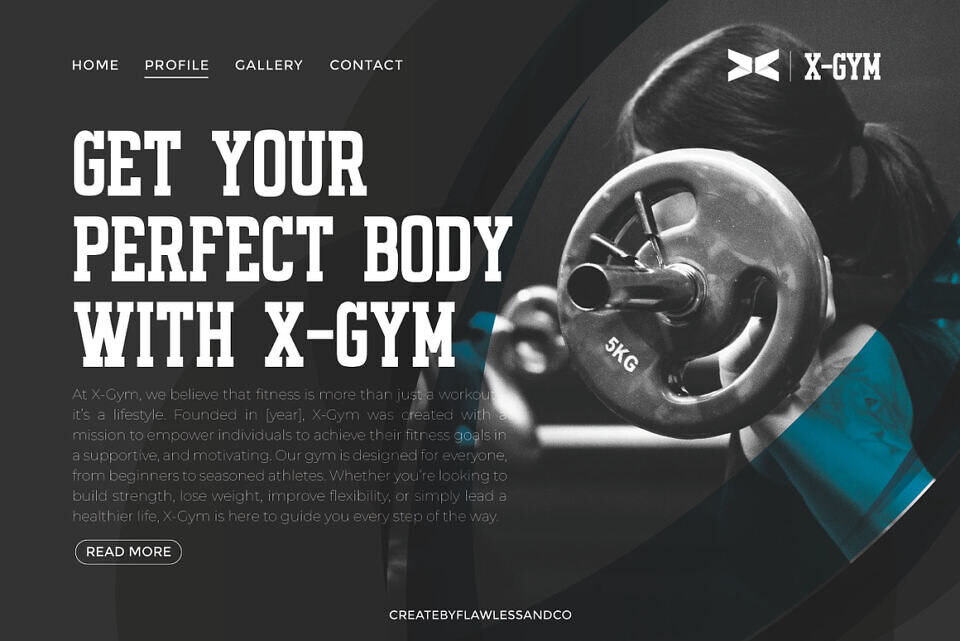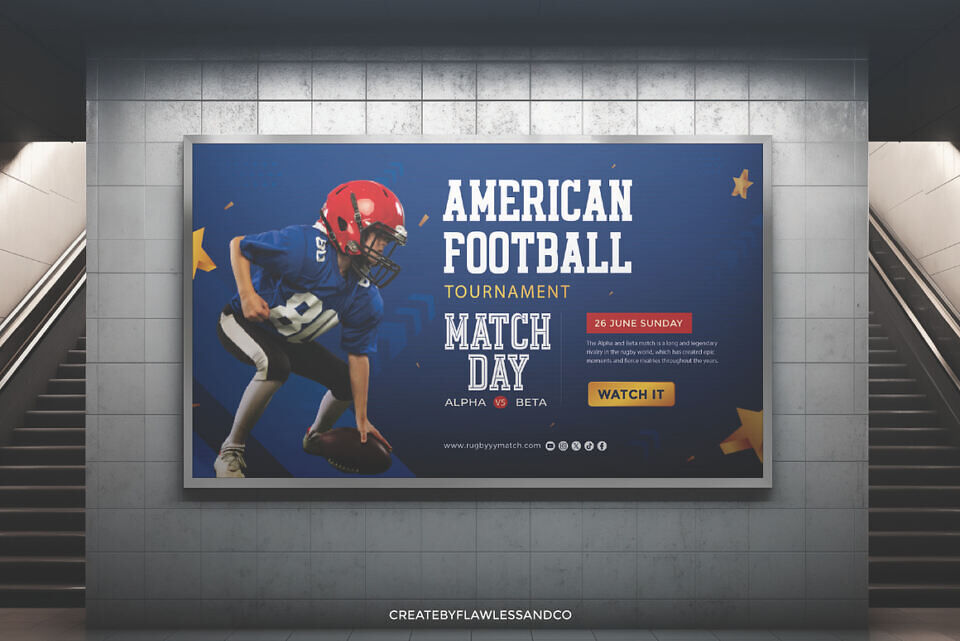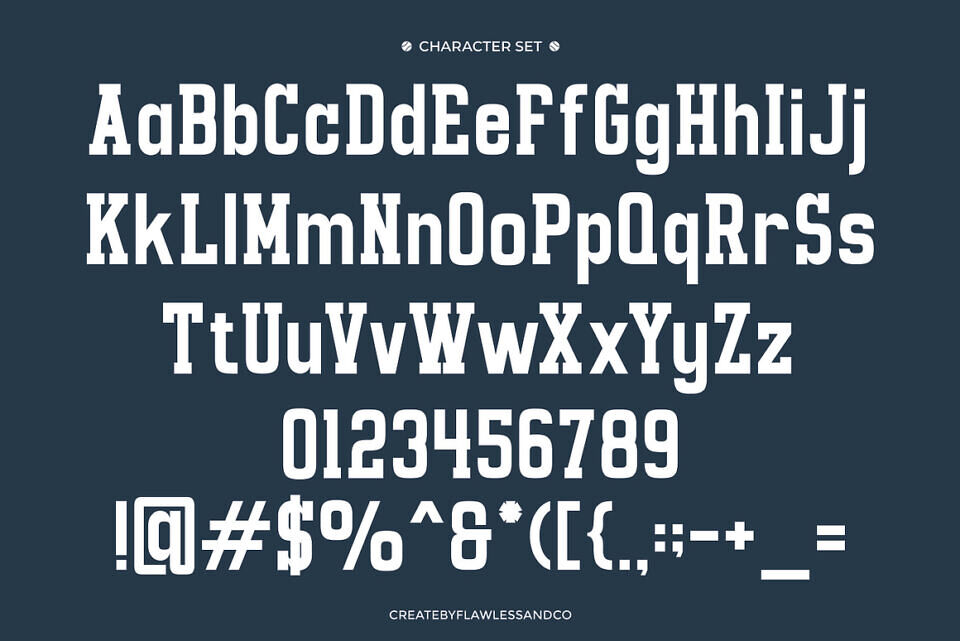
Home Runs Font
Home Runs is a sport font that blends classic athletic aesthetics with modern versatility. Inspired by the energy of baseball and the dynamic world of sports, this typeface offers a clean, streamlined look—perfect for creators who want to convey movement, focus, and team spirit without the weight of bold styling.
Unlike overly aggressive sport fonts, Home Runs keeps things light, structured, and flexible. Each letterform is crafted with balance and precision, making it ideal for sports branding that values clarity and confidence. Whether you’re working on a youth team jersey, a collegiate poster, or promotional content for a tournament, this font adapts to any sporty atmosphere.
Home Runs is especially suitable for:
• Team logos and uniforms
• Sportswear and merchandise
• Event posters and championship banners
• YouTube thumbnails and game highlights
• Branding for fitness clubs, baseball leagues, and youth academies
With 3 unique styles, Home Runs gives you room to explore different tones—from outlined, to filled, to shadowed—making it a complete toolkit for athletic design.
Powerful yet elegant, this font brings energy without shouting. It’s the perfect pick for creators who want to showcase strength and speed, while keeping their visuals clean and modern.